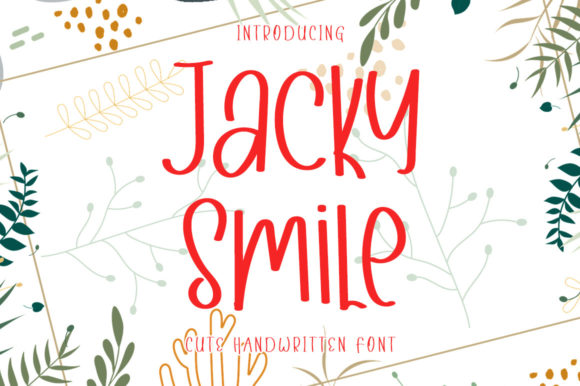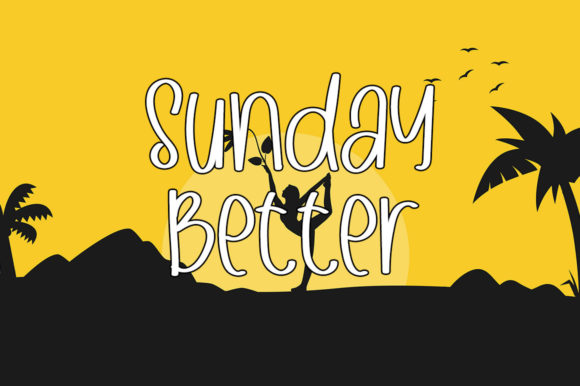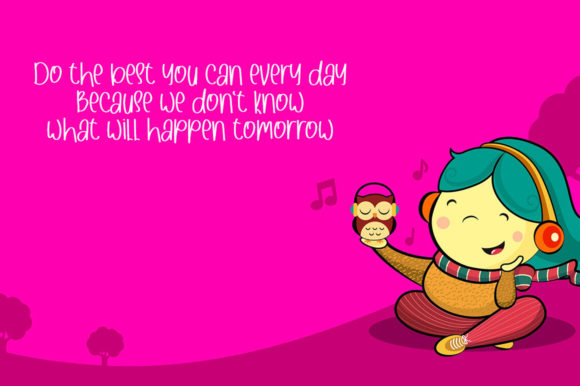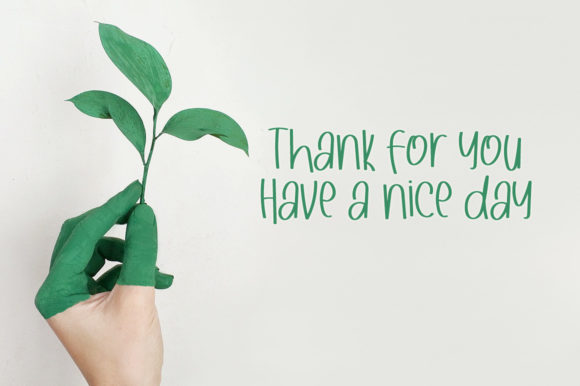
Jacky Smile Font
About Jacky Smile Font
Jacky Smile is a beautiful and sweet handwritten font. It is fresh, clean, and elegant. This font will look amazing in a great number of projects, both formal and informal. It will add an incredibly joyful touch to your designs. Fonts are designed to simplify your design. By using this font, your business will look more beautiful.